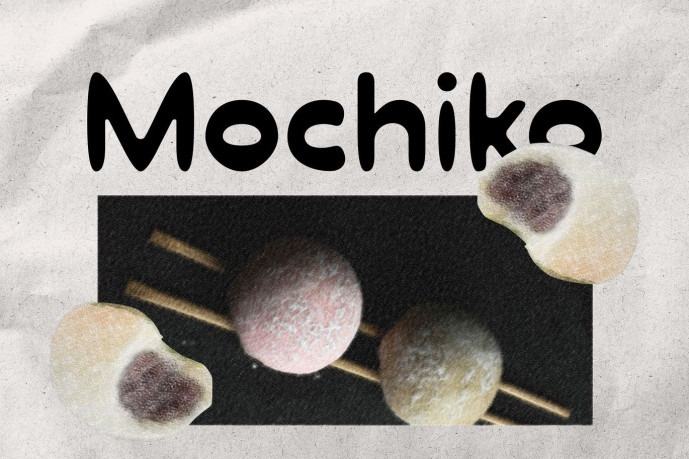
Mochiko Font
Designer: Ikhsan
Mochiko is a cheerful and playful display font designed to bring warmth, joy, and personality to every design. Featuring soft rounded edges, balanced proportions, and a charming handwritten feel, Mochiko instantly creates a friendly and approachable appearance. Its adorable character makes it perfect for projects that celebrate creativity, happiness, and imagination.
Whether you’re designing for children, food brands, or fun lifestyle products, Mochiko delivers excellent readability while maintaining its cute and eye-catching style. It effortlessly adds a sweet, modern touch that makes every headline and logo stand out.
Perfect For
Kids’ branding and packaging
Toy and baby product designs
Food & beverage logos
Cute merchandise
Book covers and storybooks
Social media graphics
Stickers and labels
Greeting cards and invitations
Posters and event promotions
Features
Uppercase
Lowercase